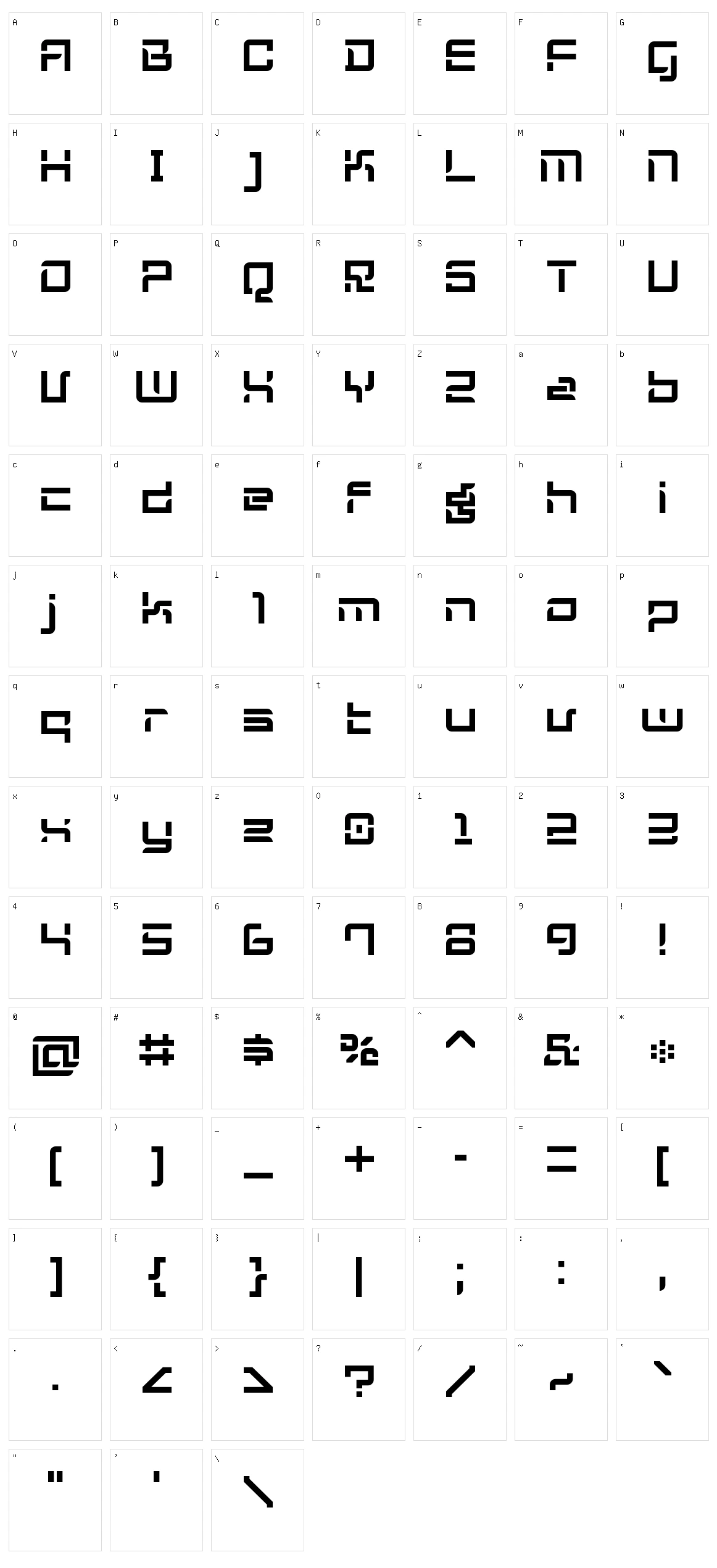
The free font KogniGear is carefully designed by UkiyoMoji Fonts, showcasing a thoughtful balance of creativity and usability and belongs to the Techno font family. When you download the ZIP file, it contains only 16.07 KB of font files, making it lightweight and quick to download. Please review the license details below to understand permitted usage and distribution rights. If license information is not available, we recommend using this font for personal projects only or contacting the author directly for commercial usage permissions.